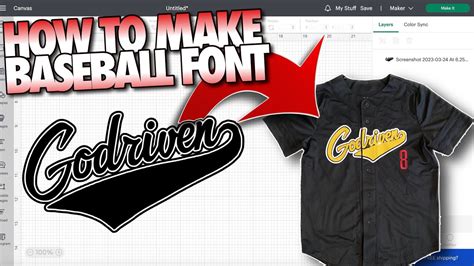
OSC Baseball Jersey Fonts: A Guide To Player Names
OSC Baseball Jersey Player Name Fonts: A Comprehensive Guide
Hey baseball fanatics! Ever wonder about the perfect font for your OSC Baseball jersey? It’s not just about picking any old typeface, guys. The font you choose for your player name can totally transform the look and feel of your jersey, making it stand out on the field and in the stands. This guide is your ultimate resource for navigating the world of OSC Baseball jersey player name fonts, ensuring you make the best possible choice for your custom gear. We’ll dive deep into different font styles, consider readability, and explore how these fonts impact the overall aesthetic of your jersey. Ready to step up your jersey game? Let’s get started!
Decoding the Font Styles: Exploring Your OSC Baseball Jersey Options
When it comes to OSC Baseball jersey player name fonts , the options are vast and varied. Understanding the different font styles is the first step in making an informed decision. Each style brings its own unique character, and the best choice will depend on your personal preferences and the overall design of your jersey. Let’s break down some of the most popular font categories you’ll encounter:
• Classic Block Fonts: These fonts are the cornerstone of baseball jersey design. They are bold, easy to read, and exude a sense of tradition and timelessness. Think of the iconic fonts used by the New York Yankees or the Boston Red Sox. Block fonts are typically characterized by their straight lines, sharp angles, and uniform thickness. They’re a safe and reliable choice, suitable for any team or player. These fonts are known for their durability and their ability to stay in style year after year. Popular block fonts include the Varsity font and variations of the Helvetica family.
• Script Fonts: For a touch of elegance and flair, script fonts are your go-to. They mimic handwriting and can add a sense of personalization to your jersey. Script fonts are often used for the team name or as accents on the jersey. Script fonts are not always the best choice for the player name due to readability constraints, especially from a distance. However, a well-chosen script font can give your jersey a unique, custom feel. Keep in mind that when selecting a script font, legibility is crucial. Choose a script that is clear and easy to read, even when it’s been stitched onto the back of a jersey. Popular script fonts include Brush Script and custom-designed team fonts.
• Modern Athletic Fonts: This category covers a broad range of contemporary fonts designed specifically for athletic apparel. These fonts often incorporate elements of both block and script styles, offering a blend of tradition and modernity. Modern athletic fonts often feature unique angles, slanted designs, and bold characteristics. They’re a great way to give your jersey a fresh, up-to-date look. These fonts can often be customized with outlines or shadow effects to enhance their visibility. Examples of this kind include the Impact font and many custom fonts created for specific teams. Consider this option if you want something that stands out from the crowd and makes a statement.
• Specialty Fonts: This is where things get really interesting! Specialty fonts include everything from distressed fonts (giving a vintage feel) to fonts with unique shapes and designs. Specialty fonts can be a fantastic way to add a touch of personality to your jersey. But be careful; some specialty fonts can be difficult to read. Make sure the font you choose is still legible from a distance and doesn’t clash with the other design elements of your jersey. You can also explore stencil fonts or even fonts that mimic the look of stitched lettering. Just have fun with it!
When selecting a font style, always consider the overall design of your jersey. Does the font complement the team colors and logo? Does it reflect the team’s history or personality? Consider the other elements that will be on the jersey to ensure the font is aligned with the overall aesthetic.
Readability Reigns Supreme: Why Font Choice Matters
Readability is arguably the most critical factor when selecting a player name font for your OSC Baseball jersey. What good is a cool-looking font if no one can actually read your name? On the field, players and fans need to be able to identify you quickly and easily. This is particularly important for those in the stands who are trying to track the game. Here’s why readability is so important and how to ensure your font is easy on the eyes:
• Distance Viewing: Baseball is a sport played on a large field. Your jersey needs to be readable from a considerable distance. Fonts that are too thin, complex, or overly stylized may be difficult to decipher from the stands or across the field. Thick, bold fonts are generally the best choice for this reason.
• Lighting Conditions: Games can be played in various lighting conditions, from bright sunshine to the glare of stadium lights. Certain fonts may be challenging to read in these conditions. Avoid fonts that blend into the jersey color or lack contrast. Choose a font color that provides a strong contrast against the jersey background for the best visibility.
• Player Name Length: Consider the length of your player name. Longer names may require a more compact font to fit on the jersey properly. If your name is long, you may need to choose a simpler font or reduce the font size to ensure it’s still readable. Shorter names allow for more creative font options.
• Clarity of Letters: Choose fonts with clear, distinct letterforms. Avoid fonts where letters might be easily confused, such as ‘O’ and ‘Q’ or ‘I’ and ‘1.’ This can lead to misidentification and confusion during the game.
• Font Size and Spacing: The size and spacing of your font are also critical for readability. Make sure the font is large enough to be easily seen but not so large that it overwhelms the jersey. Proper spacing between letters and words is essential for visual clarity.
To improve readability, consider these tips:
• Choose Bold Fonts: Bold fonts are easier to see from a distance.
• Prioritize Simplicity: Simple, clean fonts are generally easier to read than overly elaborate ones.
• Use High Contrast: Choose a font color that contrasts sharply with the jersey background.
• Test Your Design: Before finalizing your jersey design, test the font by viewing it from a distance to assess readability.
Ultimately, the goal is to choose a font that is legible and allows everyone to easily identify you on the field. Readability ensures that your jersey functions as intended: a clear identifier of your name and team affiliation.
Customization and Design: Playing with Your Font
Alright, guys, let’s talk about customization . Picking the right font is just the first step. You can take your OSC Baseball jersey design to the next level by exploring various customization options, which allows you to create a truly unique look that reflects your personality and team’s identity. Here’s how you can play around with your player name font:
• Font Color: Don’t be afraid to experiment with color! The color of your font has a huge impact on the overall look of your jersey. Choose a color that complements your team’s colors and provides enough contrast against the jersey fabric. Consider using multiple colors to outline or shadow your letters for added visual interest. You can also experiment with metallic colors, such as gold or silver, to give your jersey a premium feel. Think about the legacy of your team and use colors that reflect the history and traditions.
• Font Size: The size of your font can make a big difference in the visual balance of your jersey. You can adjust the font size to fit the player name length or the available space on the jersey. Remember to consider the other elements of your design, like the team logo and number, to make sure everything looks cohesive. Sometimes, a slightly larger font can make your name stand out, while a smaller font can give the jersey a more classic feel.
• Font Style Options: As mentioned earlier, there are countless font styles to choose from. But you can go even further with these styles. Try using a gradient fill to add depth and dimension to your letters. Consider outlining your font with a contrasting color to make it pop. If your team has a specific theme or aesthetic, try incorporating font styles that match that theme. Look for fonts with unique features, like curved lines or sharp angles, that fit your desired look.
• Special Effects: Get creative with special effects! Adding a drop shadow to your font can give your name a 3D effect. You can also add an outline or glow effect to make your letters stand out in the dark or under stadium lights. Consider using distressed fonts to give your jersey a vintage look. Try using a textured effect to mimic the look of stitched lettering. There is no limit to the possible combinations of effects you can apply to make your jersey unique.
• Team Collaboration: This is a crucial element when designing custom team jerseys. If you’re designing jerseys for an entire team, get input from your teammates and coaches. Discuss your team’s colors, logo, and overall aesthetic to ensure that the font you choose aligns with the team’s identity. Collaborating with a professional designer can bring all these elements together to create a unified and professional look.
When it comes to customization, the possibilities are endless. Don’t be afraid to experiment with different options and find what best represents your personal style and team spirit. Be creative, have fun, and enjoy the process of designing your OSC Baseball jersey.
From Concept to Creation: Choosing the Right Font
Now you know the key elements to consider when selecting an OSC Baseball jersey player name font , it’s time to put it all together and get your jersey designed. Here’s a quick recap and a few extra tips to help you along the way:
• Define Your Style: Before you start browsing fonts, decide on the overall look and feel you want for your jersey. Do you want something classic, modern, or unique? Consider your team’s history, colors, and personality.
• Consider Readability: Always prioritize readability. Ensure that your chosen font is easy to read from a distance and in various lighting conditions. Simple, bold fonts are usually the best choice for this reason.
• Explore Font Options: Browse through a variety of fonts and try out different styles. Experiment with different colors, sizes, and special effects. Many online jersey design tools allow you to preview your design with different fonts and colors.
• Get Feedback: Before finalizing your design, ask for feedback from teammates, coaches, or friends. Get a second opinion to make sure your jersey looks great from all angles.
• Choose a Reputable Vendor: Once you’ve finalized your design, choose a reputable vendor who can provide high-quality jersey printing and customization services. Make sure the vendor offers a wide selection of fonts, colors, and customization options.
• Review Your Proof: Always review the proof of your jersey design before approving it for production. Double-check the font, spelling, color, and placement of all elements.
• Enjoy Your Jersey! Once your jersey is ready, wear it with pride and enjoy the feeling of having a custom piece of apparel that represents you and your team.
Choosing the perfect font for your OSC Baseball jersey player name is an exciting and creative process. Take your time, consider your options carefully, and don’t be afraid to experiment. With a little bit of planning and creativity, you can create a jersey that looks fantastic and makes you feel like a star on the field. Good luck, and have fun designing your perfect baseball jersey!